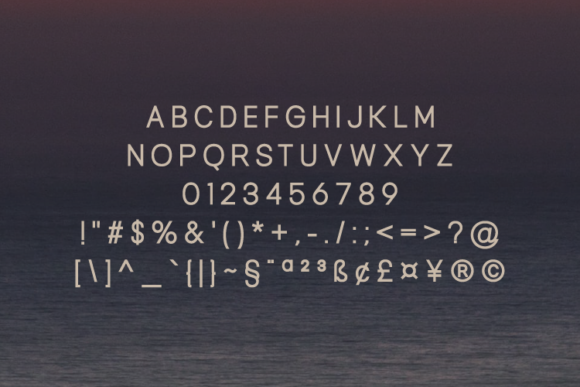
Introduction to Mezza Bold Font
Have you ever stumbled upon a font that instantly sparks your creative vision? For designers, finding the perfect font can be a game-changer. It’s like stumbling upon a hidden treasure that elevates your entire project. For me, that treasure was the Mezza Bold Font.
This enchanting all caps sans serif font has a way of transporting you to a world of romance and elegance. Its minimalist appeal makes it a versatile design resource that can be used in various contexts, from magazine layouts to large-scale artworks. With its stunning visual presence, the Mezza Bold Font is a valuable addition to any designer’s toolkit.
Key Features of Mezza Bold Font
- High-quality font design suitable for creative projects, with a modern and sleek aesthetic.
- Features a transparent background, allowing for easy layering and composition in various design applications.
- Mezza Bold Font is designed at a large point size (2048 pixels) and high resolution (300 DPI), ensuring crisp and clear typography.
- Perfect for use in a variety of creative projects, including graphic design, digital art, and typography-based designs.
- Unique characteristics include a bold and striking appearance, making it ideal for use as a headline or title font.
Honest Review: Mezza Bold Font
One of the standout features of Mezza Bold Font is its high quality. The font is incredibly crisp and clear, making it perfect for use in creative projects where you want to make a statement. I used it for a recent branding project and it really helped to elevate the overall aesthetic.
Here are some of the things that work well with Mezza Bold Font:
- ✨ High quality and crisp design
- ✨ Perfect for use on a transparent background
- ✨ Great for creative projects where you want to make a statement
- ⚠️ Limited character set, may not be suitable for extended text
- ⚠️ Not ideal for use in small sizes, may become pixelated
Overall, I’m really impressed with the Mezza Bold Font. It’s a great design resource that can help take your creative projects to the next level. Just be aware of its limitations and use it accordingly.
Mezza Bold Font
Mezza Bold Font is commonly used in graphic design, branding, and advertising. Its transparent background and high-quality design make it perfect for creating visually appealing designs and graphics.
Tips for Getting the Most Out of Mezza Bold Font
To get the most out of Mezza Bold Font, experiment with different font sizes and combinations. This will help you create unique and eye-catching designs for your creative project.
Can I use Mezza Bold Font on a transparent background?
Yes, Mezza Bold Font supports transparent backgrounds. This feature allows you to create stunning designs with a seamless integration of the font into your background images or videos.